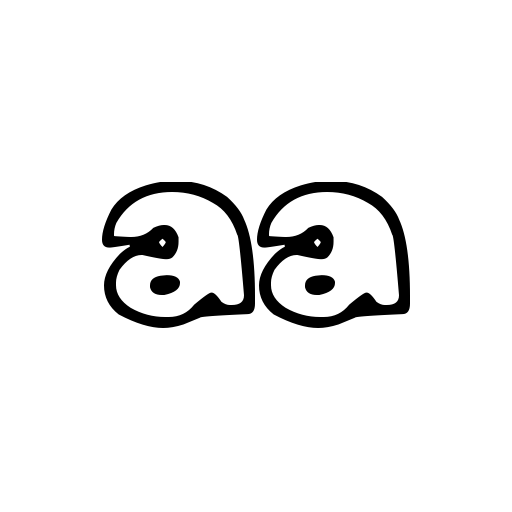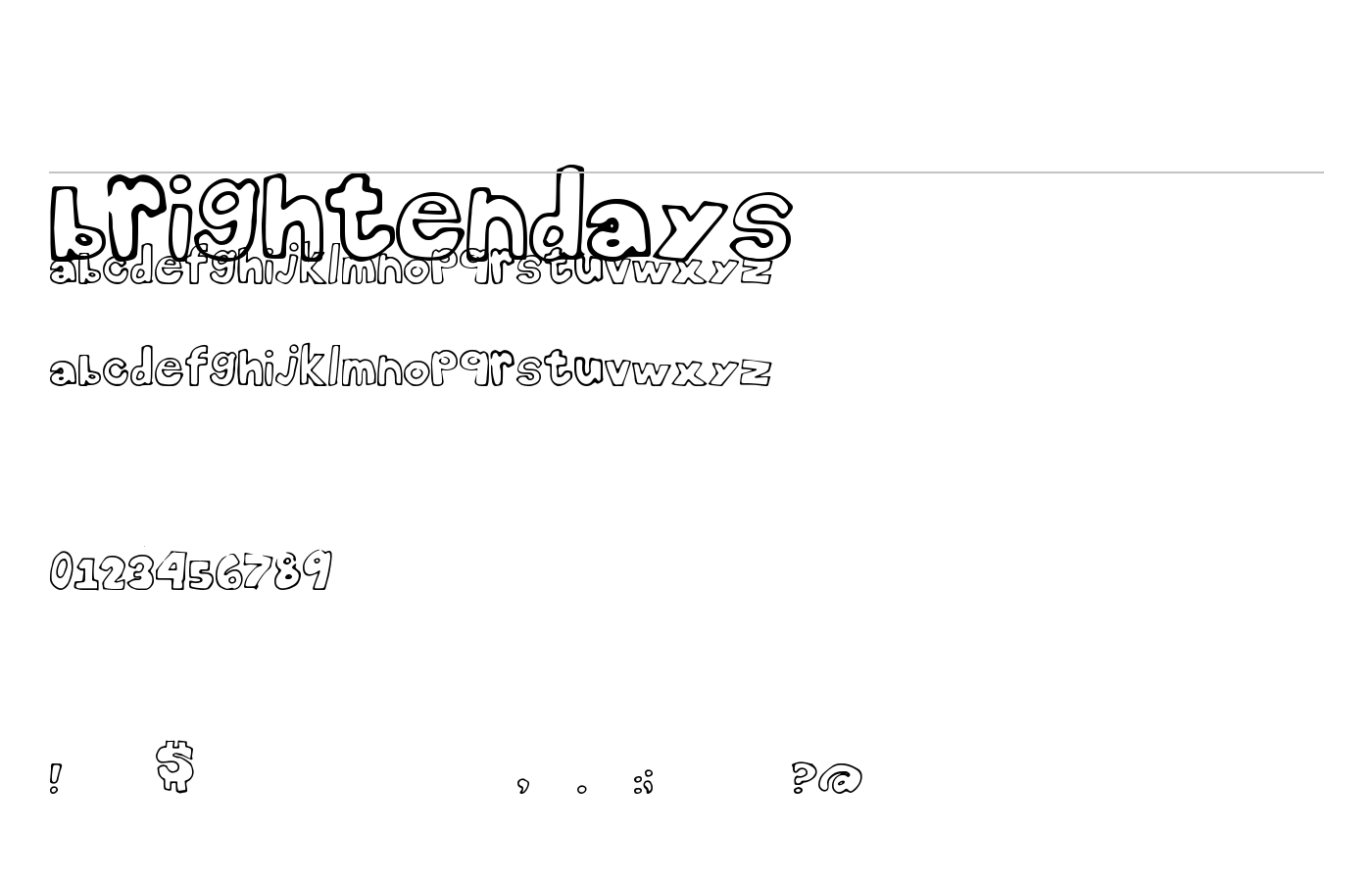
BrightenDays is a whimsical, playful sans serif font characterized by its thick, uneven strokes and rounded, hand-drawn shapes that give it a casual, friendly feel. Its bubbly letterforms and quirky details make it ideal for fun, informal designs such as children's books, party invitations, or creative branding. This font stands out best in large sizes where its unique personality adds charm and cheerfulness.
BrightenDays Font
About BrightenDays Font
| Font family | BrightenDays Font |
| Designer | Max Infeld |